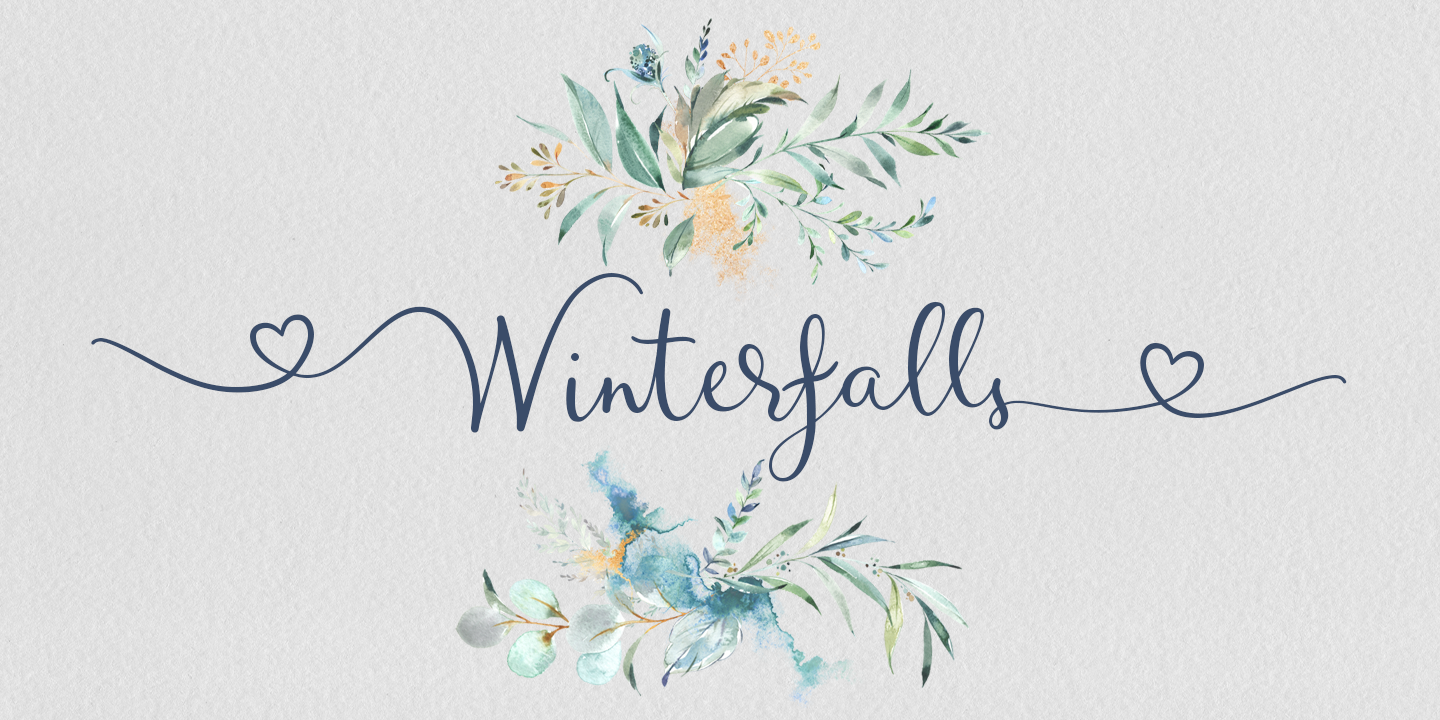
Bring a touch of seasonal elegance and handwritten charm to your designs with Winterfalls Font Free Download. This beautiful script typeface features flowing, calligraphic strokes and a gentle, cozy feel—perfect for holiday cards, winter-themed branding, wedding invitations, social media graphics, and handcrafted product packaging. Winterfalls Font Free Download combines grace and warmth to create an inviting, stylish impression.
The elegant curves and smooth connections of Winterfalls Font make it ideal for both headers and accent text. Whether you’re designing festive materials or year-round romantic content, this font adds a sophisticated, natural flow that enhances your message with personality and flair.